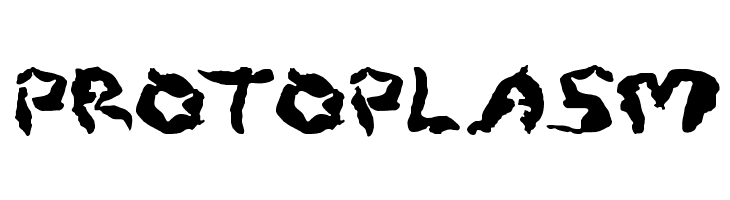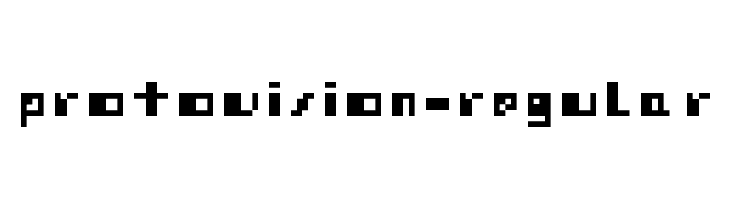
• Protoplasm 字体
A bold, textured font with an organic, abstract design.
• Protoplasm Bold 字体
A bold, organic font with a fluid, hand-drawn appearance.
• Protoplasm Condensed 字体
A bold, condensed font with an organic, jagged design.
• Protos 字体
• Prototype 字体
( Fonts by Justin Callaghan - mickeyavenue.com OFF SITE )
A bold, modern sans-serif font with geometric lines and a slightly condensed style.
• Prototype Community 字体
• Protovision-Regular 字体
( Harried Type - H.G. Blakeman - harriedtype.com )
A bold, pixelated font with a retro digital aesthetic.
• Proud-Regular 字体
A bold, textured, hand-drawn style font with a dynamic and artistic feel.
• Proudance Regular 字体
• Proudest Boast Demo 字体
A refined serif font with high contrast and elegant curves, perfect for formal use.